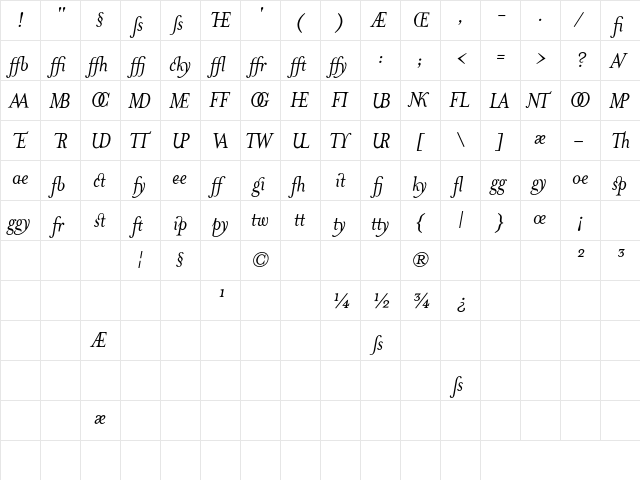
MrsEavesJustLig RomanItalic
Design Context for MrsEavesJustLig Typeface
MrsEavesJustLig takes a measured approach to typography — its balanced proportions and neutral character make it a reliable workhorse for both digital and print work. Its italic angle brings a sense of urgency and motion to the letterforms.
Pro Tip: Use MrsEavesJustLig for emphasis, pull quotes, and subheadings where its slanted energy can add rhythm to the layout.